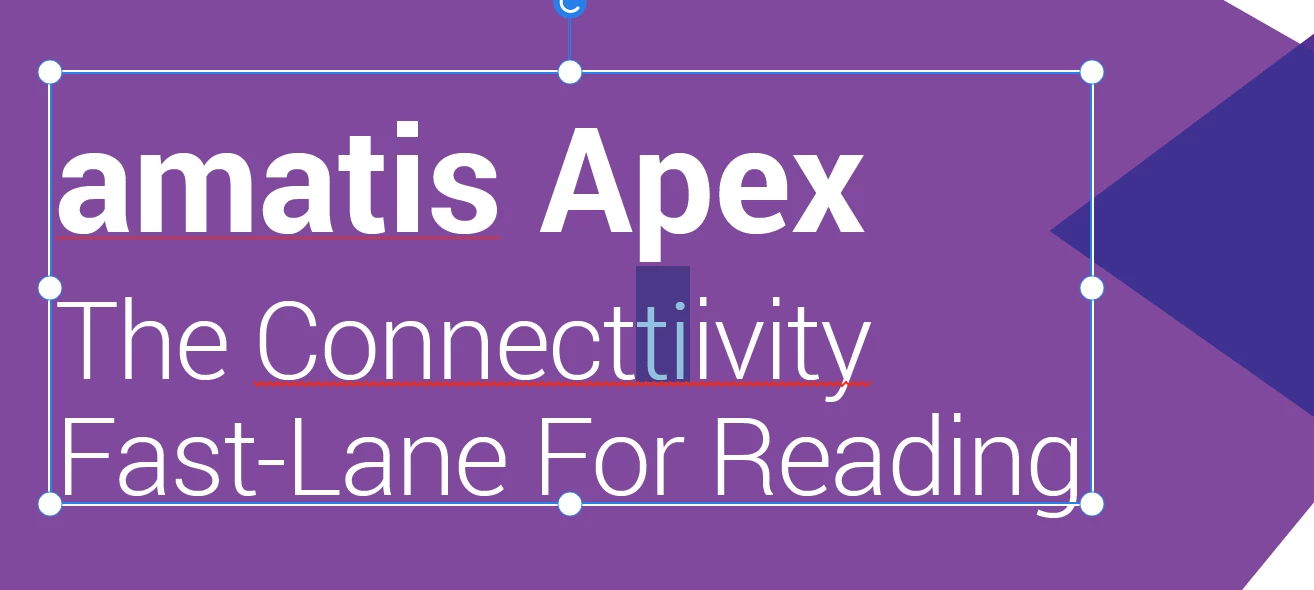
SStewartLawrenceParticipantForum|Forum|4 years agoJuly 19, 2021QuestionFont issue RobotoForum|Forum|4 years agoJuly 19, 20210 replies693 viewsRoboto fonts (Light, medium and so on) are nestled under the parent font and can't be accessed.The font has also changed. Notice the 'i' where the period was once square, is now circular. Create PDFsEdit and convert PDFs